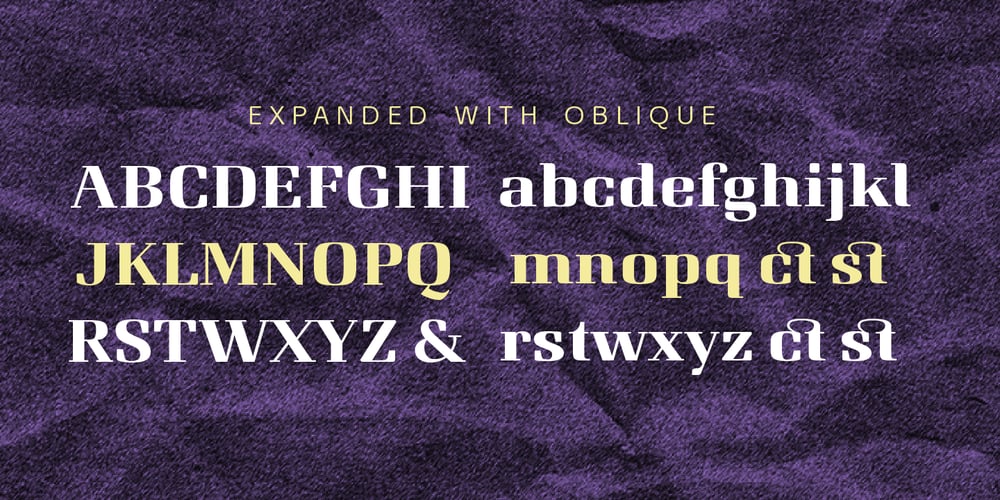
Trebla Square Font Family was designed by John Nahmias and published by Jonahfonts. Trebla Square contains 4 styles and family package options. Designed with a very limited over-shoot to accentuate a horizontal appearance to increase legibility in long or short headings as well as body-texts. Note with the capital O and lower o roundness has been limited along with other lowercase b, d, g, q and p. Trebla Square is very suitable for titling, display, captions, logos and supports all if not most latin languages.